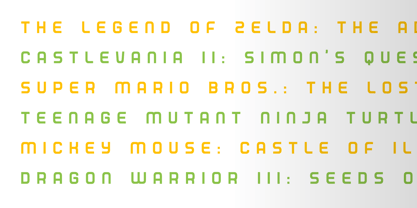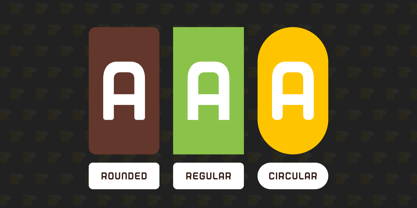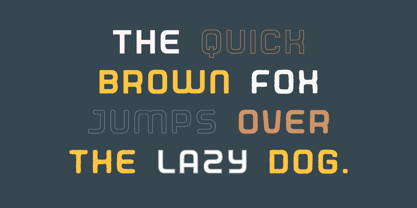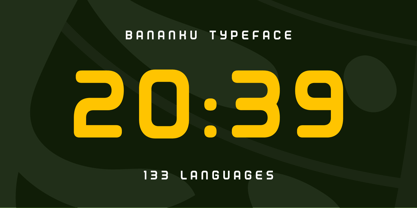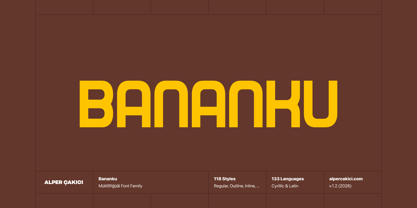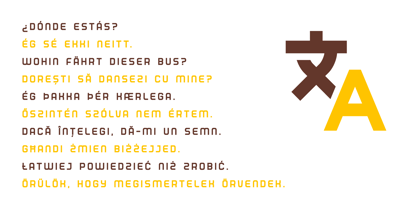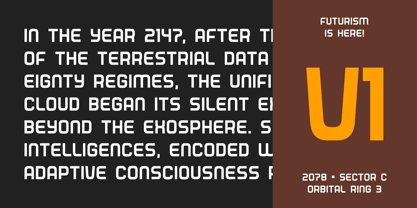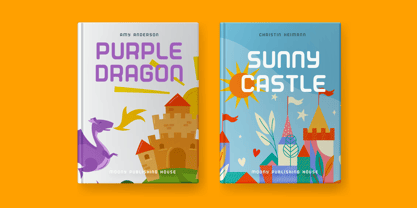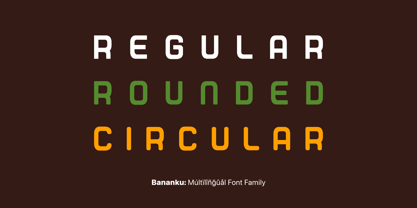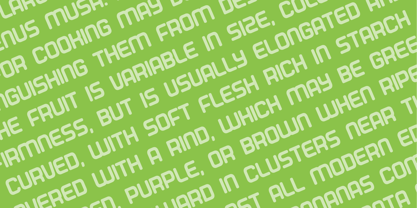
Bananku
The Bananku Font Family was designed by Alper Çakıcı and published by AlperCakici. Bananku contains 118 styles and family package options. More about this family
Bananku is a playful and expressive sans serif typeface designed with a soft, rounded structure and a distinctly childish personality. Built to feel friendly, approachable, and full of character, it brings a lively tone to any design it touches. The family is extensive and highly versatile, featuring 118 styles that range from clean and smooth to textured and handcrafted. Variants like Aged, Brush, Chalk, Grainy, Rough, Sketchy, and more add depth and flexibility, making Bananku suitable for both polished and organic-looking designs. The Circular and Rounded subfamilies enhance its bubbly, soft appearance, while Inline, Outline, and Rimmed styles provide creative layering possibilities. Bananku supports both Latin and Cyrillic languages, making it a strong choice for international projects. Its wide stylistic range allows designers to experiment freely—whether creating bold headlines, playful branding, children’s books, packaging, posters, or social media graphics. With its cheerful tone and massive style library, Bananku is more than just a typeface—it’s a creative toolkit for fun, energetic, and eye-catching typography.